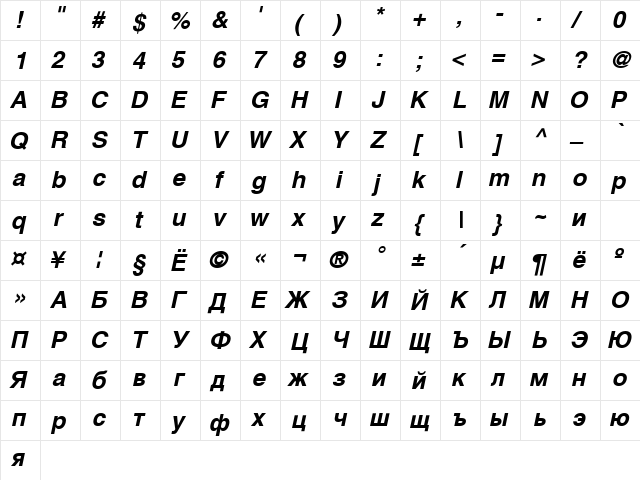
AGHlvCyrillic Bold-Italic A Font Preview
Design Context for AGHlvCyrillic Typeface
AGHlvCyrillic takes a measured approach to typography — its balanced proportions and neutral character make it a reliable workhorse for both digital and print work. Its italic angle brings a sense of urgency and motion to the letterforms. The heavy weight commands attention and anchors typographic hierarchies.